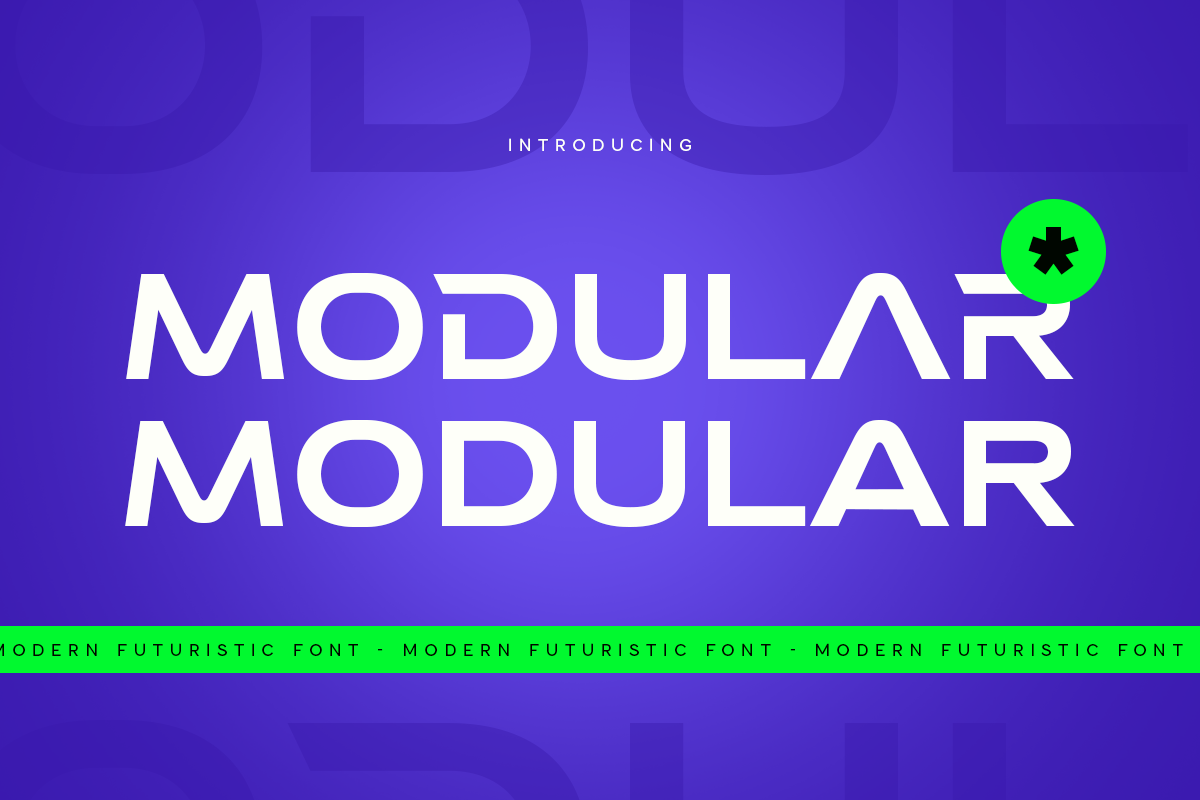
Modular - Futuristic Scifi Font
Transform your sci-fi projects with Modular, the cutting-edge futuristic font designed for technology and cryptocurrency themes. Modular delivers a modern sci-fi aesthetic specifically crafted for standout typography in technology, film, and futuristic design projects. The font features extra outline styles that amplify the futuristic feel, making it perfect for cryptocurrency platforms, technology brands, and sci-fi themed content. This contemporary typeface brings a sleek, technological edge t...